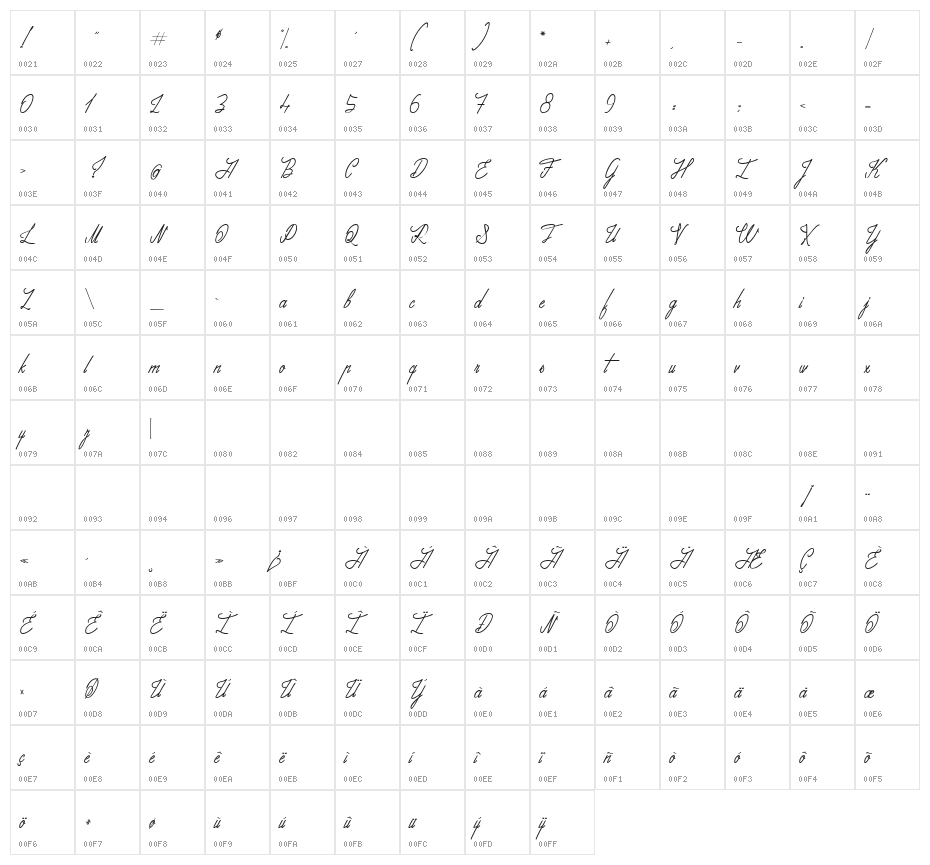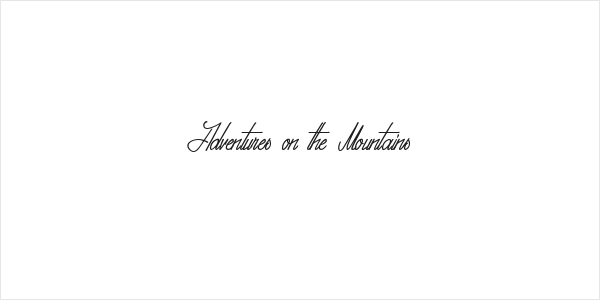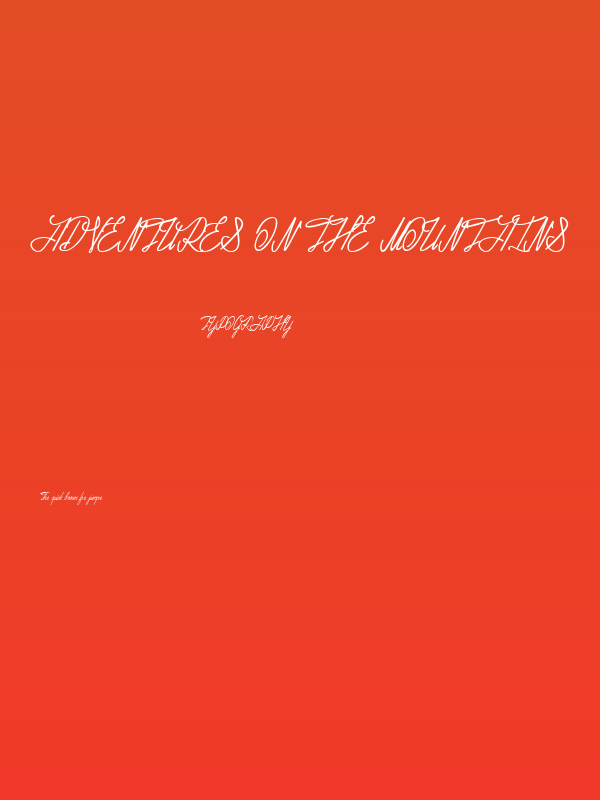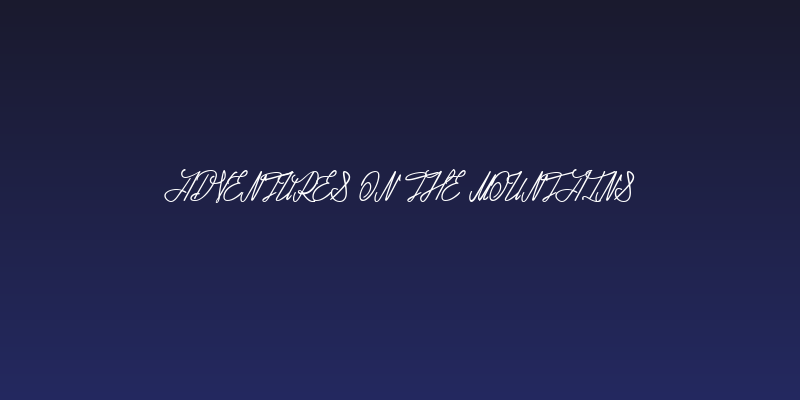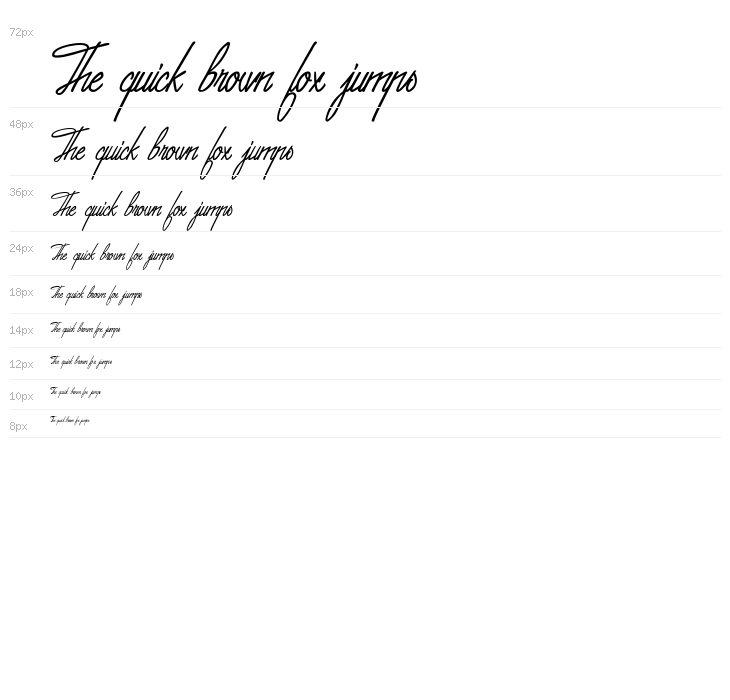
Adventures on the Mountains Font
Adventures on the Mountains Description
This elegant script font features a flowing, cursive style with intricate loops and swashes. The uppercase letters are particularly ornate, with extended strokes that give a sense of movement and grace. The lowercase letters maintain a consistent style, offering readability while preserving the decorative nature of the font. Numbers and special characters are designed to match the overall aesthetic, making this font suitable for various creative applications. The font's design is reminiscent of classic calligraphy, yet it maintains a modern touch, making it versatile for both traditional and contemporary projects.
| Proposed Projects | Ideal for wedding invitations, greeting cards, logos, and branding materials that require a touch of elegance and sophistication. |